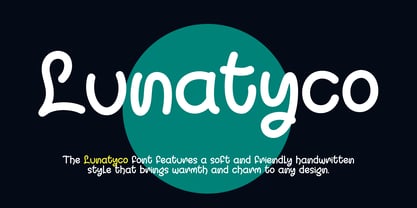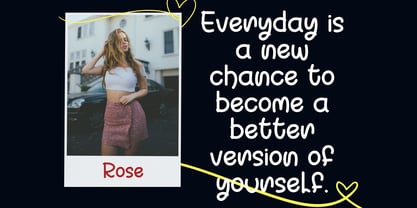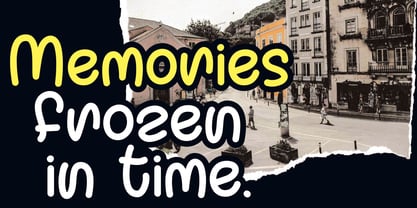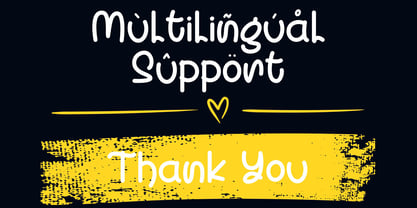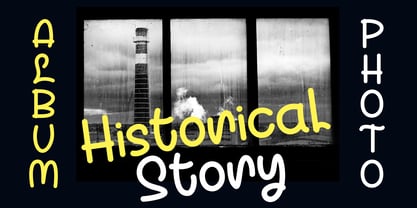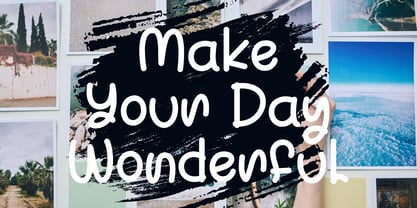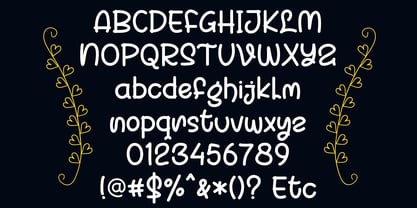
Lunatyco
by Letterafandi Studio
The Lunatyco Font Family was designed by Ahmad Afandi and published by Letterafandi Studio. Lunatyco contains 2 styles and family package options.
The Lunatyco font features a soft and friendly handwritten style that brings warmth and charm to any design. With its smooth, rounded shapes and playful character, this font is perfect for creative project such as logos, product packaging, inspirational quotes, and social media designs. Its casual yet professional look makes it ideal for nature-themed, kids, or modern minimalist concepts.
Designers: Ahmad Afandi
Publisher: Letterafandi Studio
Foundry: Letterafandi Studio
Design Owner: Letterafandi Studio